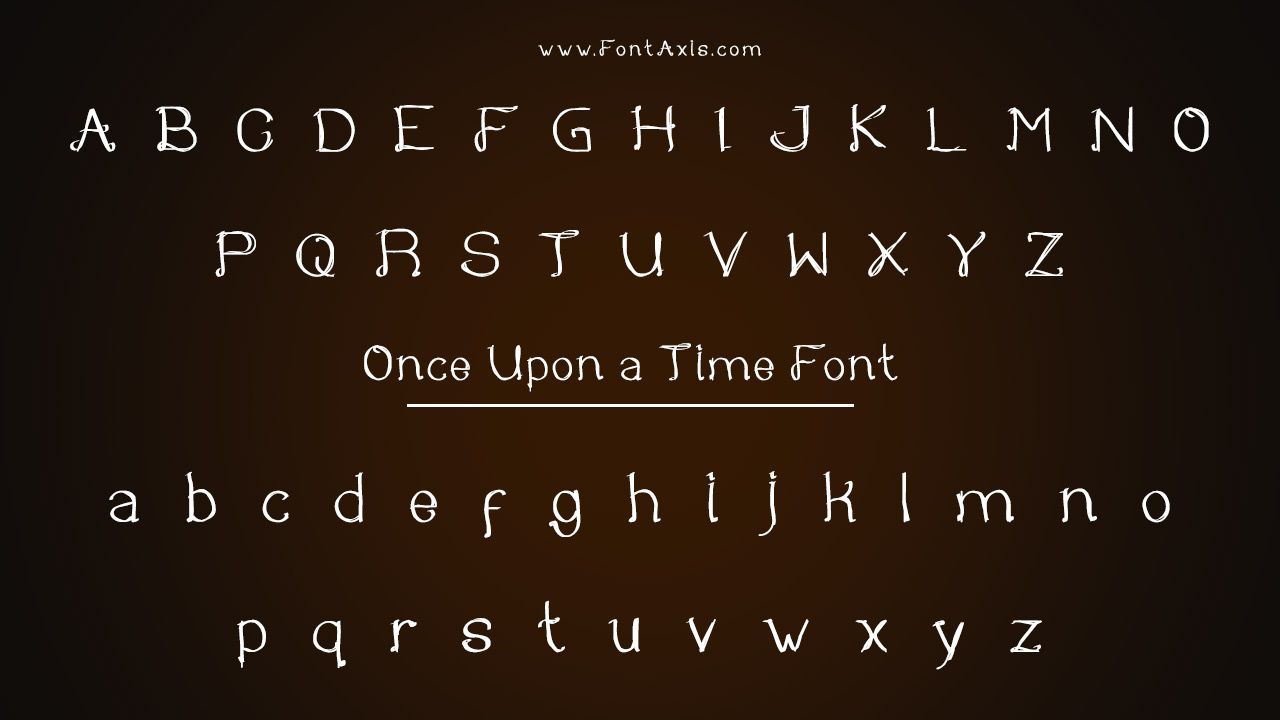
The Once Upon a Time Font is a beautifully crafted script font perfect for projects requiring a touch of fairy-tale magic. Designed to evoke elegance and nostalgia, this font is widely used in decorative, branding, and personal designs. It is a versatile choice for wedding cards, logos, or fantasy-themed materials. Below is a detailed guide to this font, its uses, and more.
Once Upon A Time Font Overview
| Name | Once Upon a Time Font |
| Style | Script, Decorative |
| Designer |
Zachary Lucier
|
| Type | Handwriting, Script, Fancy, Decorative |
Once Upon A Time Font Family Includes
The Once Upon a Time Font family features the following variations:
- Uppercase Letters
- Lowercase Letters
- Numbers
- Punctuation
- Special Characters
Where Once Upon A Time Font Is In Use
The Once Upon a Time Font is perfect for a wide range of creative applications, including:
- Wedding Invitations: Adds a magical and elegant flair.
- Fantasy-Themed Projects: Perfect for fairy tale or storybook designs.
- Brand Logos: Ideal for brands emphasizing nostalgia or sophistication.
- Printed Materials: Suitable for cards, posters, and flyers.
- Digital Designs: Great for banners, headers, and SVG-based projects.
The Once Upon a Time Font pairs well with:
- Neutraface Light: For a modern, minimalistic touch.
- Times New Roman: Adds a traditional serif complement.
- Lora: A serif font with a storytelling aesthetic.
The Once Upon a Time Font is a charming and versatile typeface, ideal for projects that require a touch of elegance and fantasy. Whether you’re working on wedding invites, fairy tale designs, or digital branding, this font offers timeless appeal. Its compatibility with modern tools and formats like SVG and PNG makes it a favorite among designers.
3.Is The Font Suitable For Branding?
Absolutely! The Once Upon a Time Font is perfect for logos, business cards, and other branding materials, especially for businesses in creative or fantasy-related industries like bookstores, event planning, or themed restaurants. Its decorative, storybook-like style adds a whimsical and elegant touch, making your brand memorable and unique.
4.Are Numbers And Punctuation Included?
Yes, the font includes a full set of numbers, punctuation marks, and letters, making it versatile for various design needs. These elements ensure the font is functional not just for titles or headlines but also for detailed text-based designs like invitations, flyers, or even book covers.